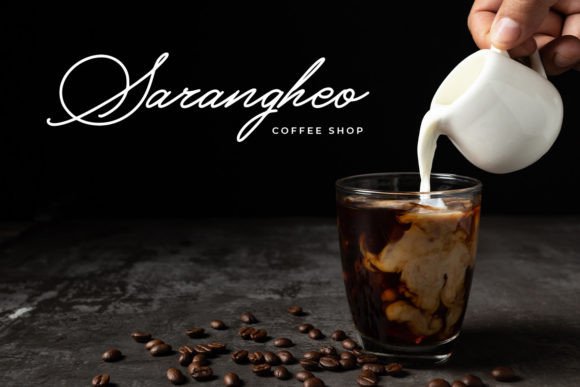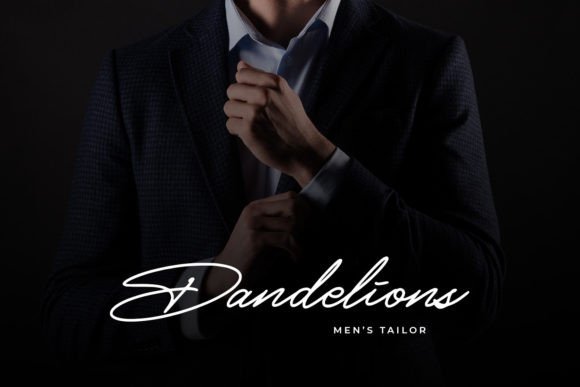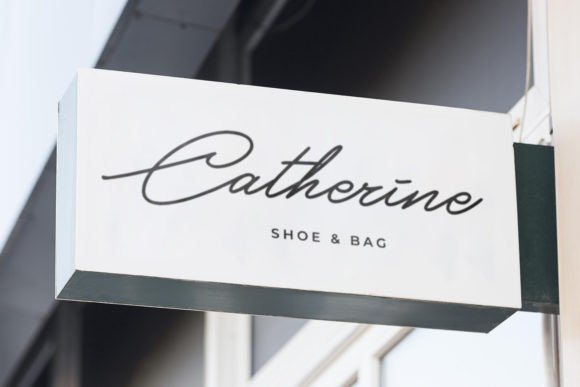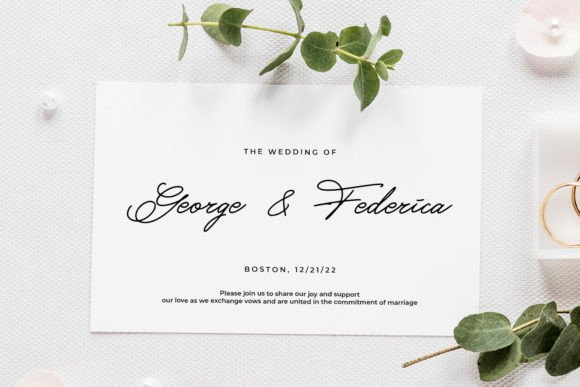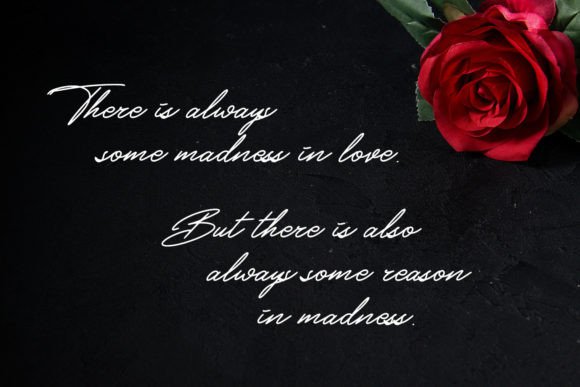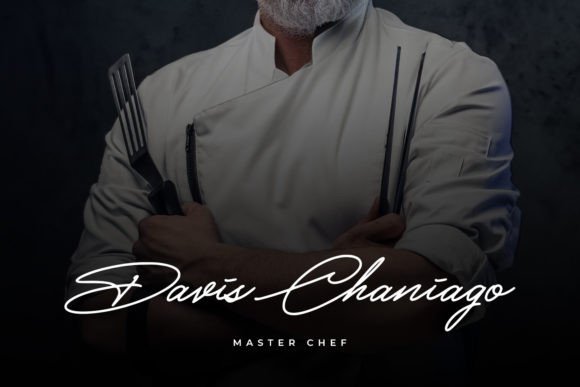
Introduction to Lovember Font
You know that feeling when you’re brainstorming a new creative project and the perfect font eludes you? You’ve scoured the internet for the perfect match, but nothing seems to capture the essence of your vision. Well, we’re here to change that with the introduction of the Lovember Font – a romantic and sweet calligraphy typeface that will elevate any design project to new heights.
This gorgeous font is more than just a pretty face – its unique characters that dance along the baseline add a luxurious touch to any design. Whether you’re working on a wedding invitation, a love letter, or a romantic blog post, the Lovember Font is sure to add a touch of elegance and sophistication. And the best part? You can download it for free, complete with a transparent background, making it a valuable resource for designers of all levels.
With its high-quality design and versatility, the Lovember Font is a must-have for any creative project. Whether you’re a seasoned pro or just starting out, this font is sure to become a go-to design resource that will help you create truly stunning work.
Key Features of Lovember Font
- Unique and creative design perfect for a variety of projects, including graphic design, digital art, and print media.
Honest Review: Lovember Font
I recently came across the Lovember Font while searching for a free download to use in a creative project. At first glance, I was impressed by its elegant design and high-quality aesthetic. The font’s transparent background makes it easy to use with various backgrounds, which is a definite plus.
- ✨ High-quality design that looks great on both digital and print materials.
- ✨ Wide range of font styles, making it perfect for creative projects that require a lot of customization.
However, I did encounter some limitations while using the Lovember Font. For example:
- ⚠️ Limited compatibility with certain design software, which can be frustrating for designers who prefer to use specific tools.
- ⚠️ Not ideal for use in situations where a bold, attention-grabbing font is needed.
Overall, I would say that the Lovember Font is a solid design resource that can be a great addition to any designer’s toolkit. While it may have some limitations, its high-quality design and free download make it a worthwhile investment for designers looking for a reliable font to use in their creative projects.
The Lovember Font is ideal for use in a variety of creative projects, including wedding invitations, birthday cards, and social media graphics. Its high-quality design and transparent background feature make it a popular choice among designers and non-designers alike.